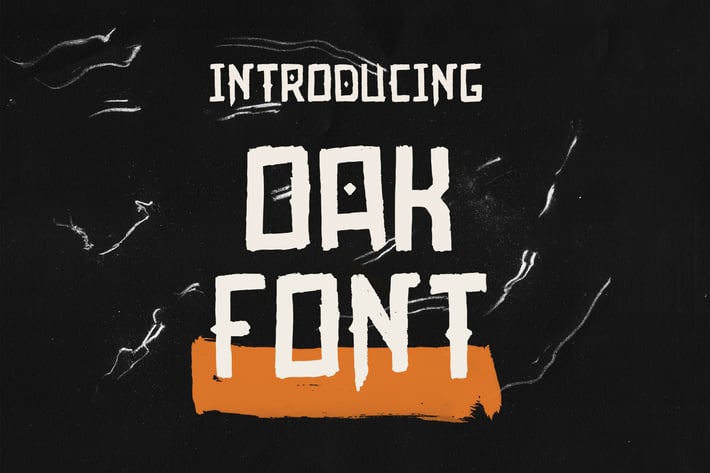
Oak Font
Bold vintage handwritten font. It includes English uppercase letters, numbers and punctuation. Perfectly match for branding, advertising, posters, etc.